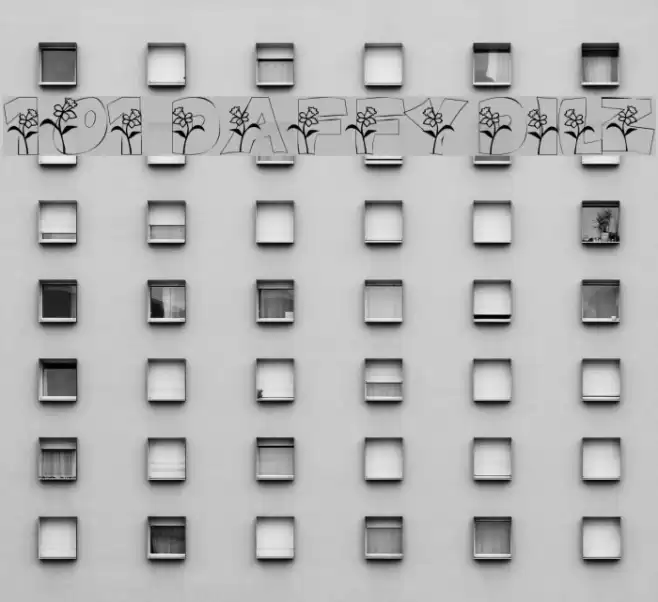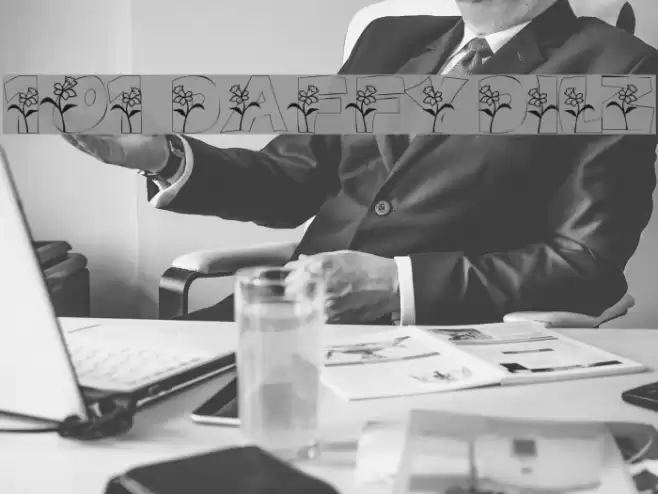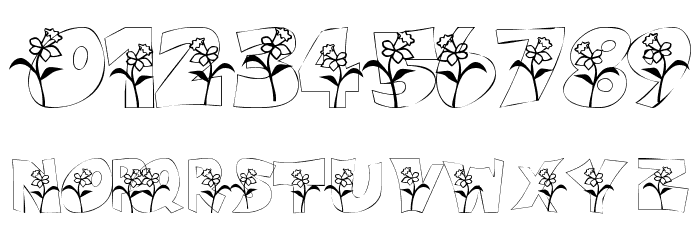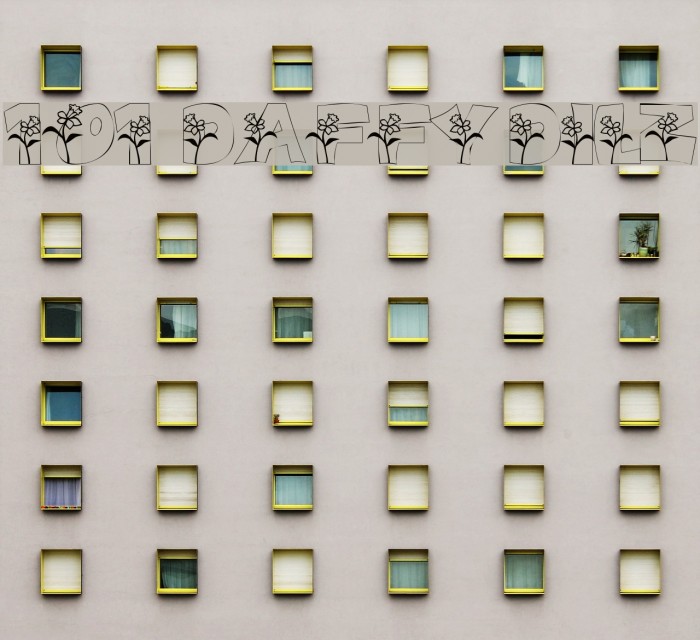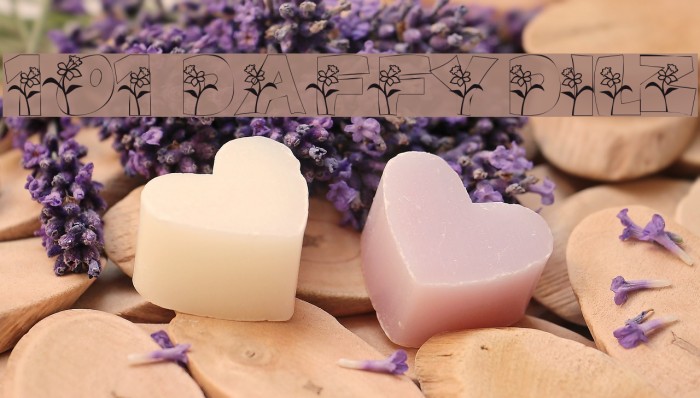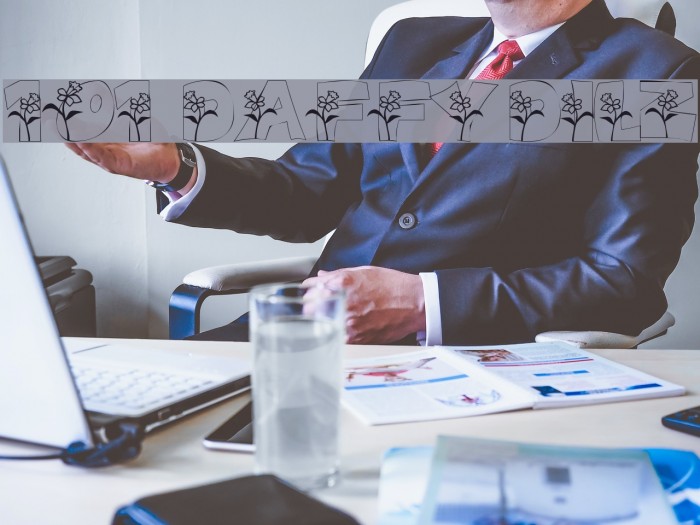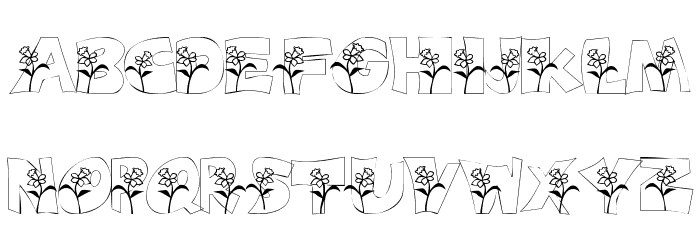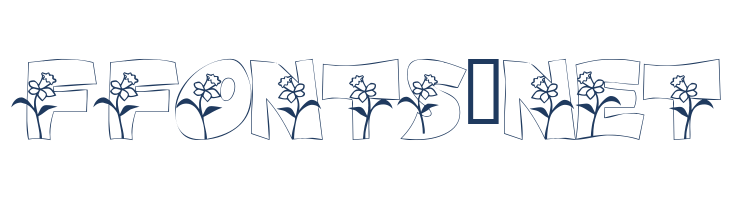
101! DaffYDilZ Font
101! DaffYDilZ Description
This decorative font features a playful and whimsical design, incorporating floral elements into each character. The letters and numbers are adorned with daffodil-like flowers, giving the font a unique and artistic flair. The overall look is bold and eye-catching, making it suitable for creative and fun projects. The characters have a consistent width and the floral embellishments add a touch of elegance and nature-inspired beauty. This font is perfect for projects that require a touch of creativity and nature, such as greeting cards, invitations, and posters.
A decorative font with floral embellishments on each character from Uncategorized fonts.
- Proposed Projects: Ideal for greeting cards, invitations, posters, and creative projects.